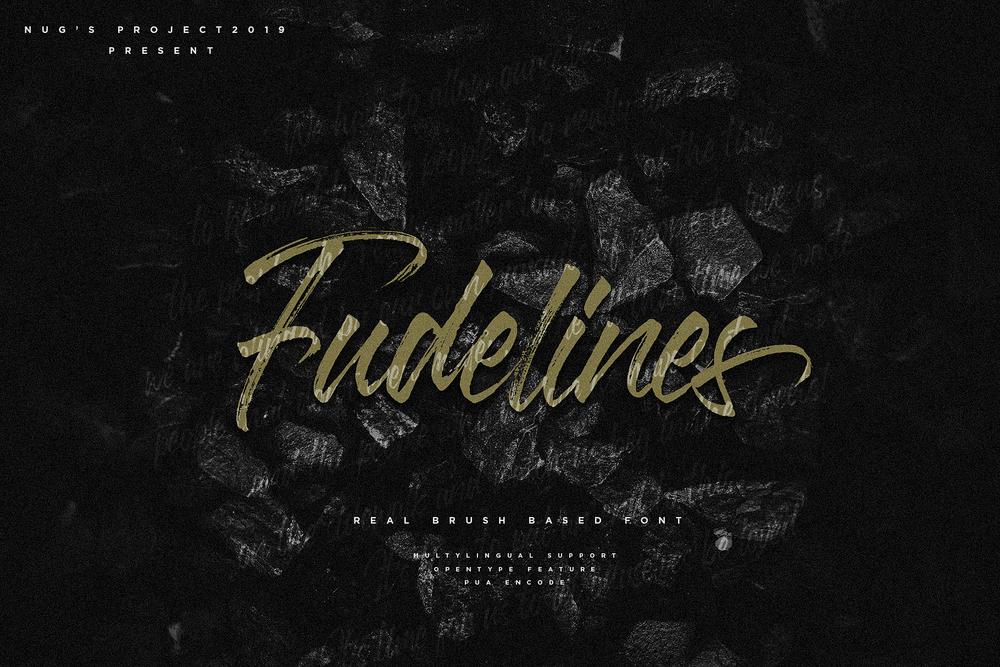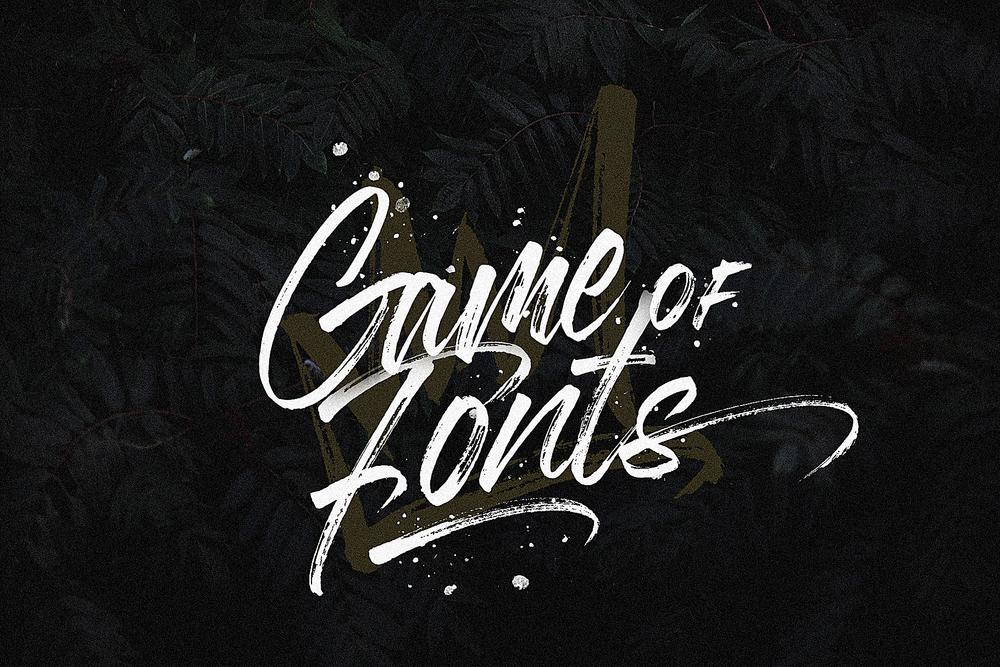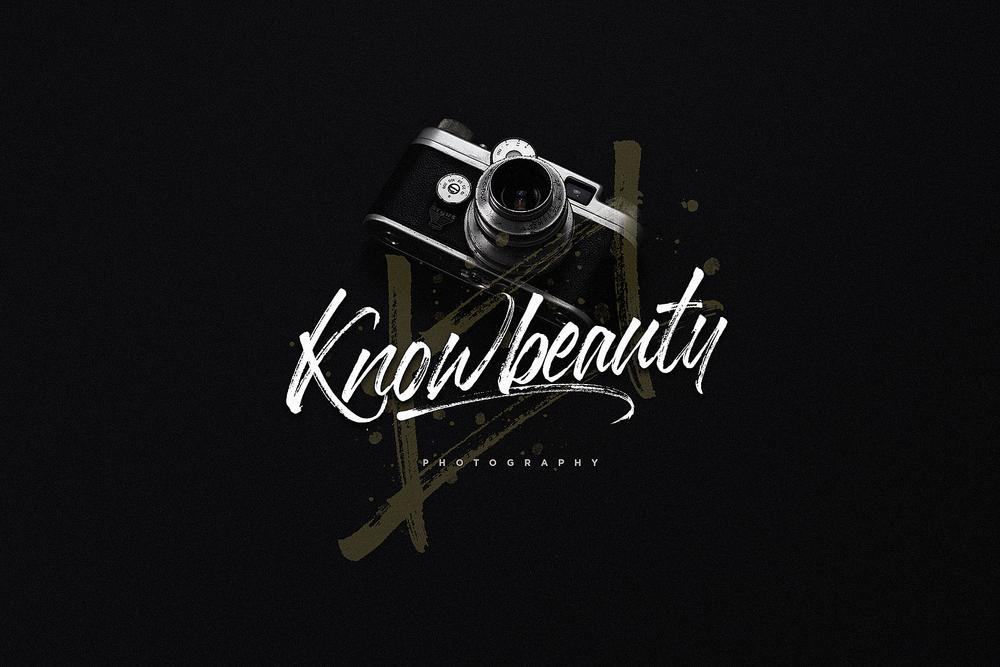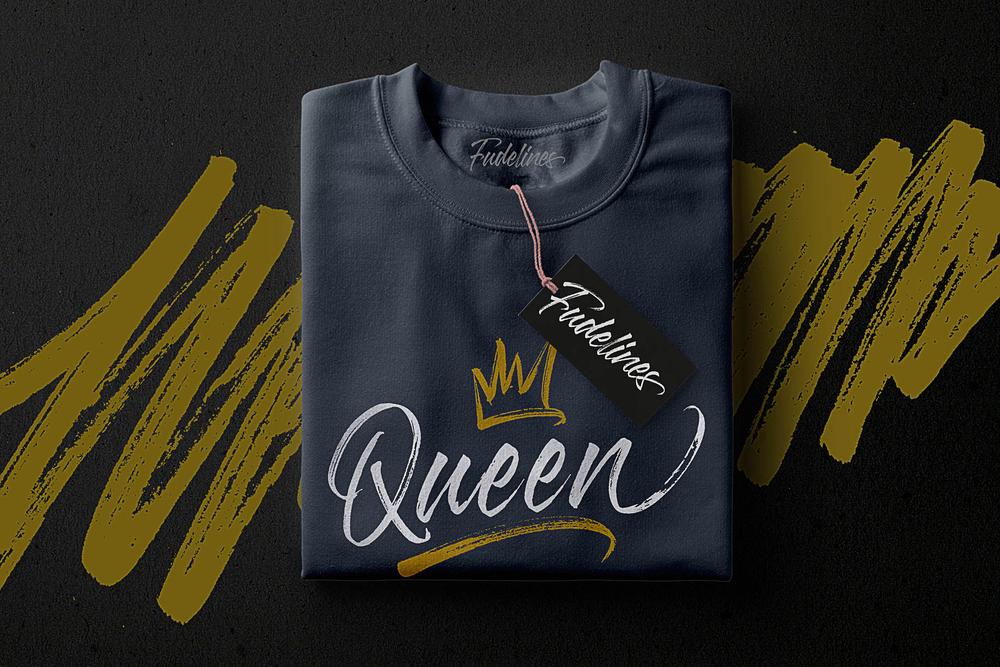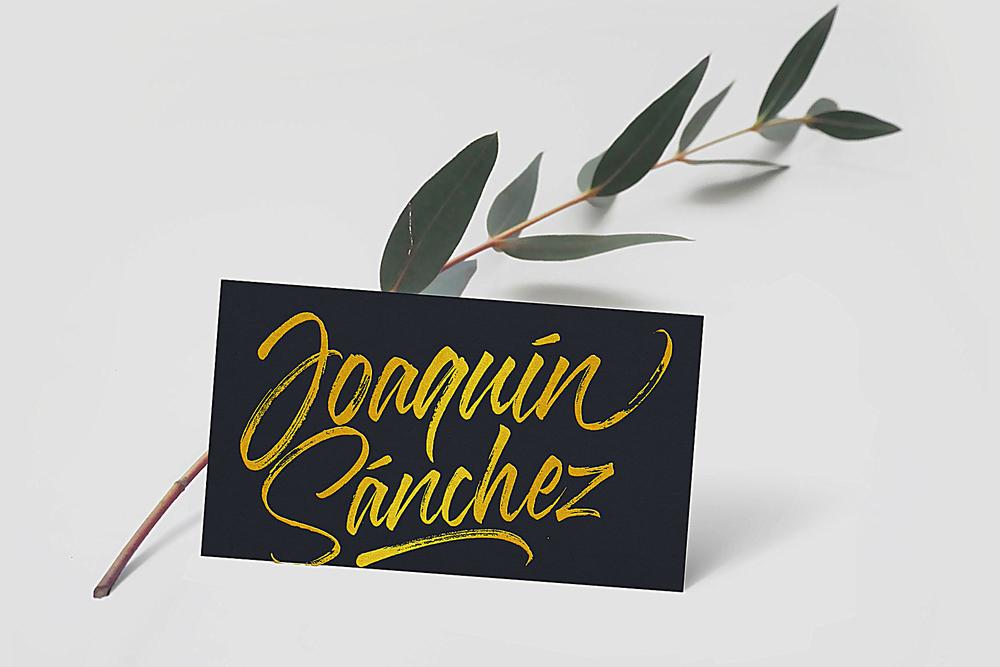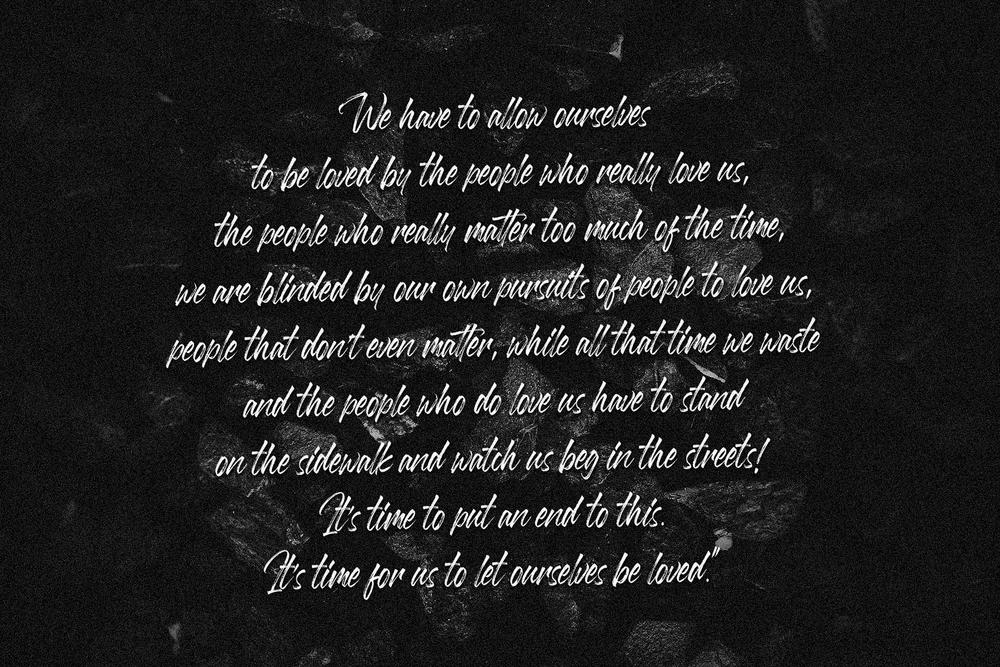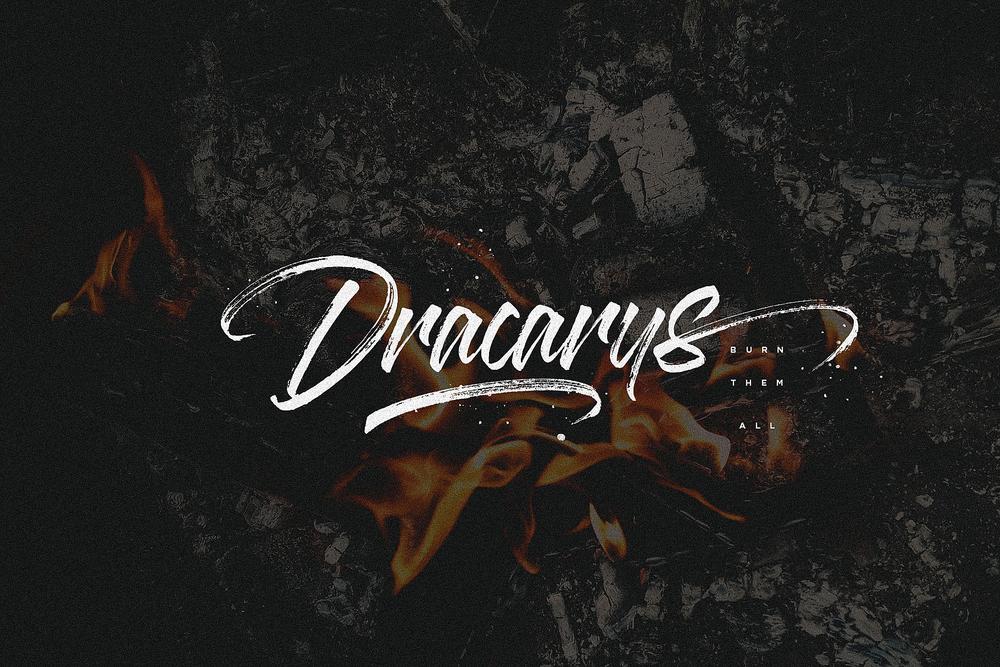
Fudeline
Fudelines is a beautiful brush stroke font have consistent letters. font is perfect for your design such as printed pillow, t-shirt, video tumbnail, and others. What's Included ✦ Fudelines OTF ✦ Fudelines TTF ✦ Fudelines Swash OTF ✦ Fudelines swash TTF ✦ Fudelines WOFF How to get access alternate glyphs from open type fonts check this link : http://adobe.ly/1m1fn4Y